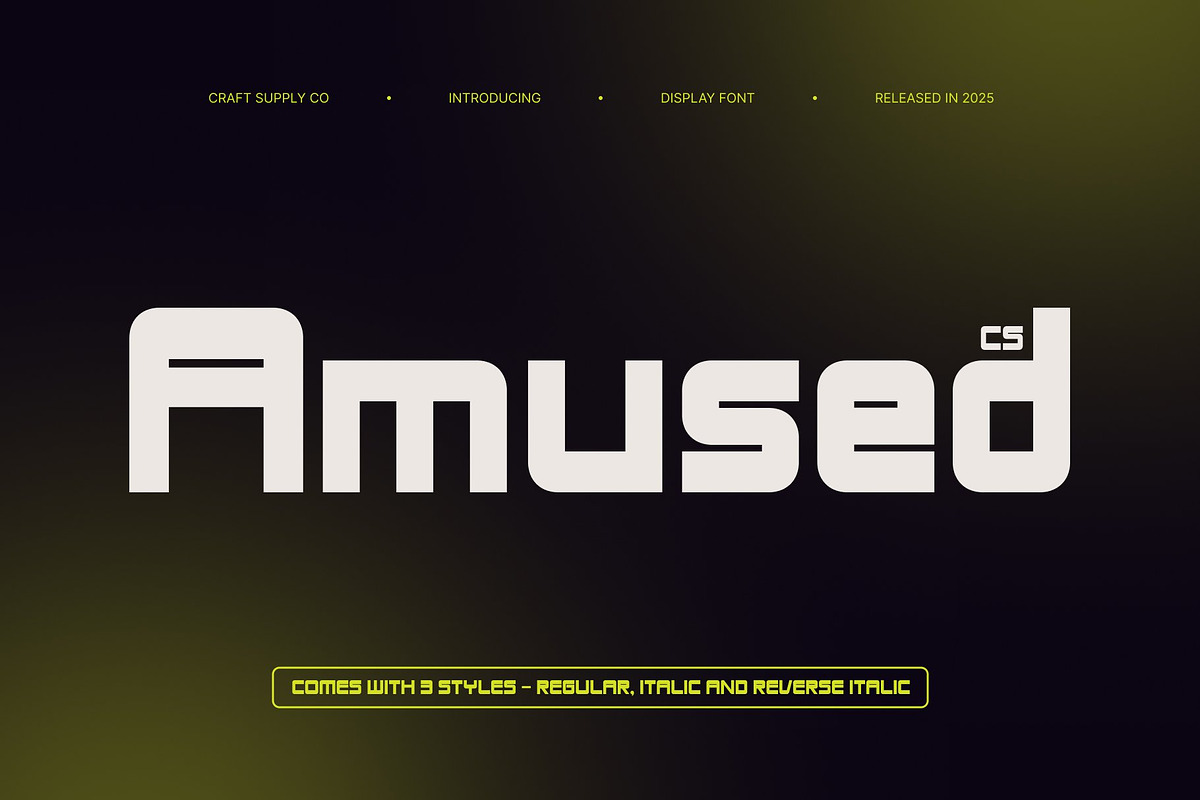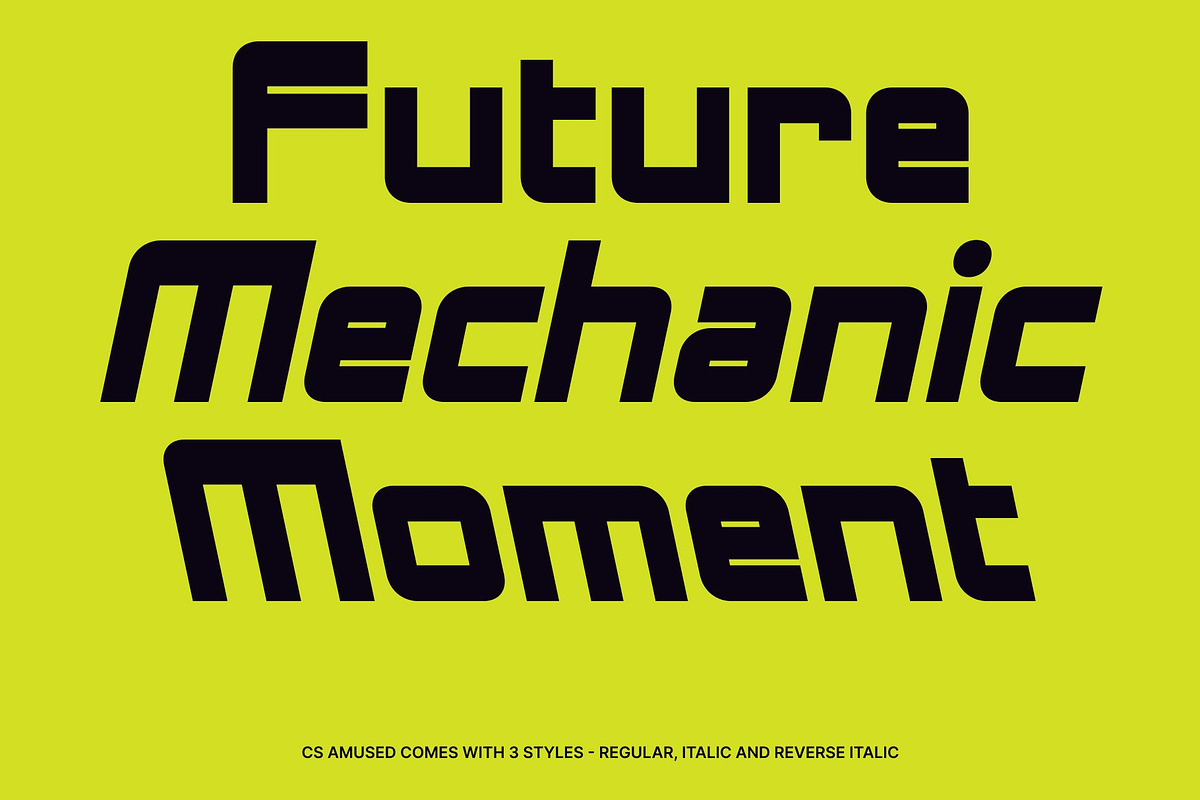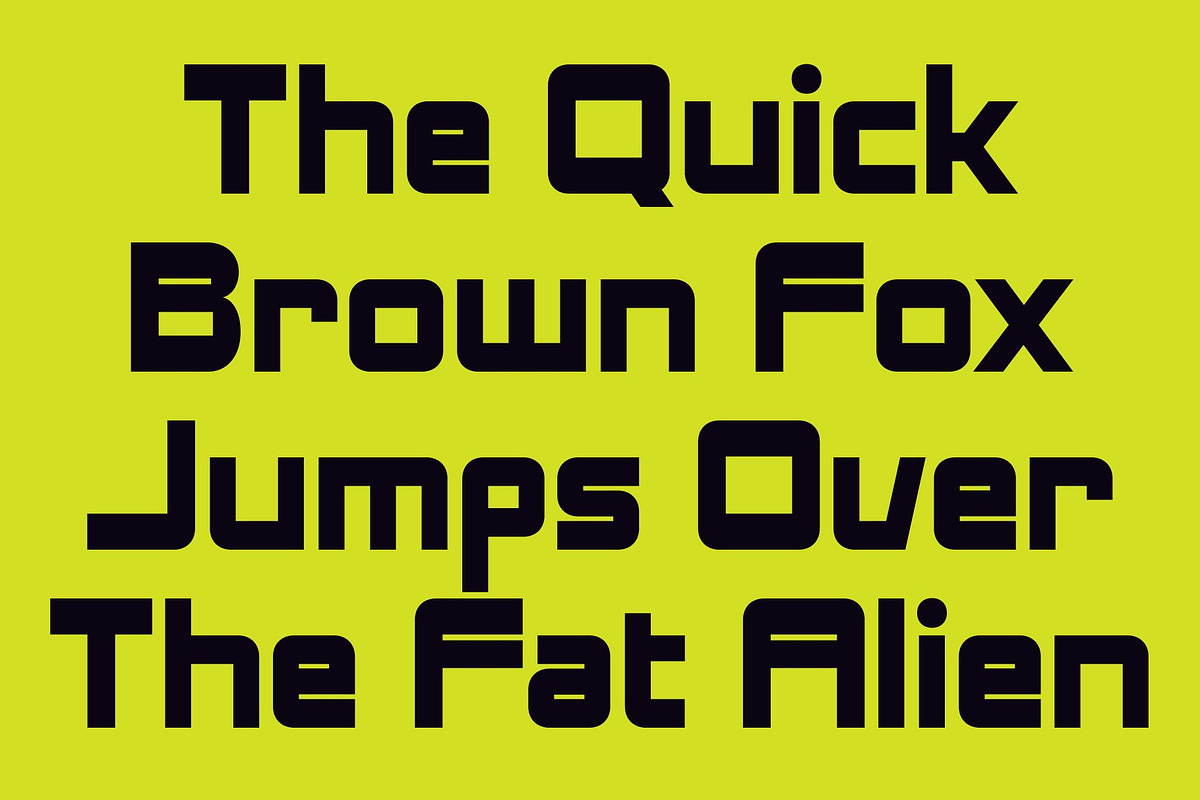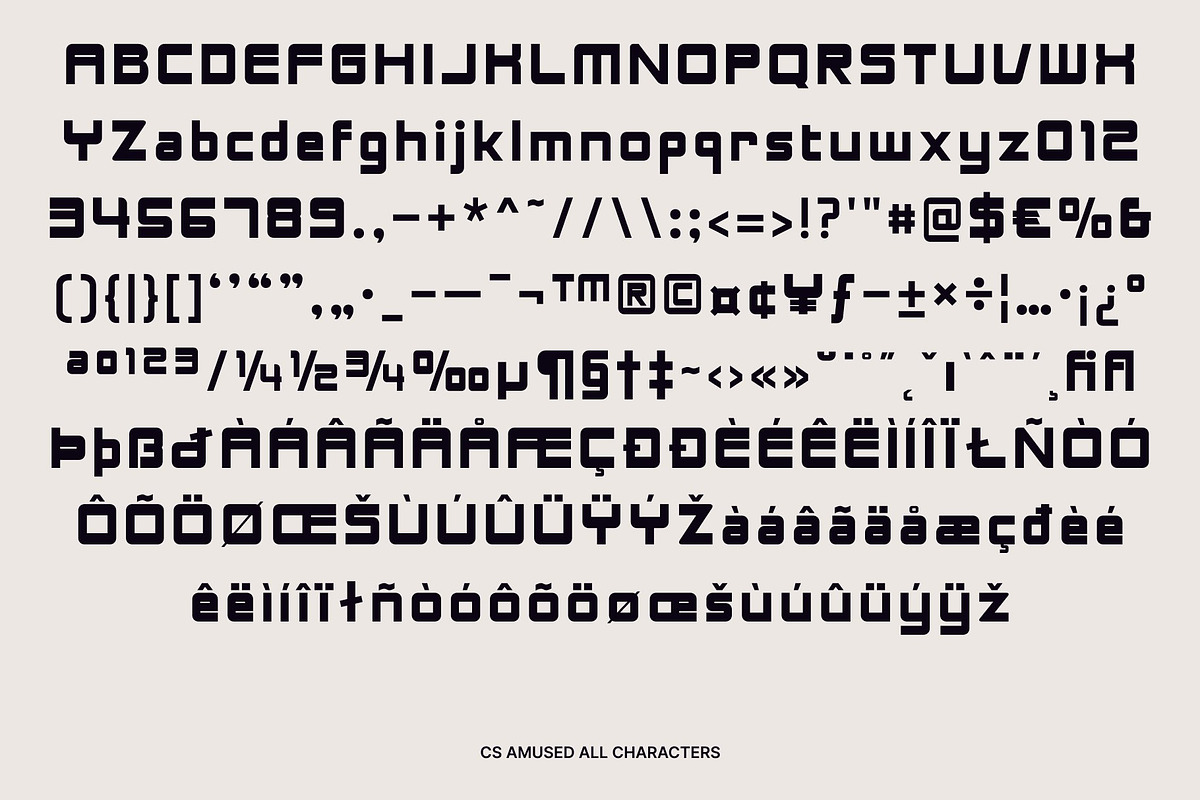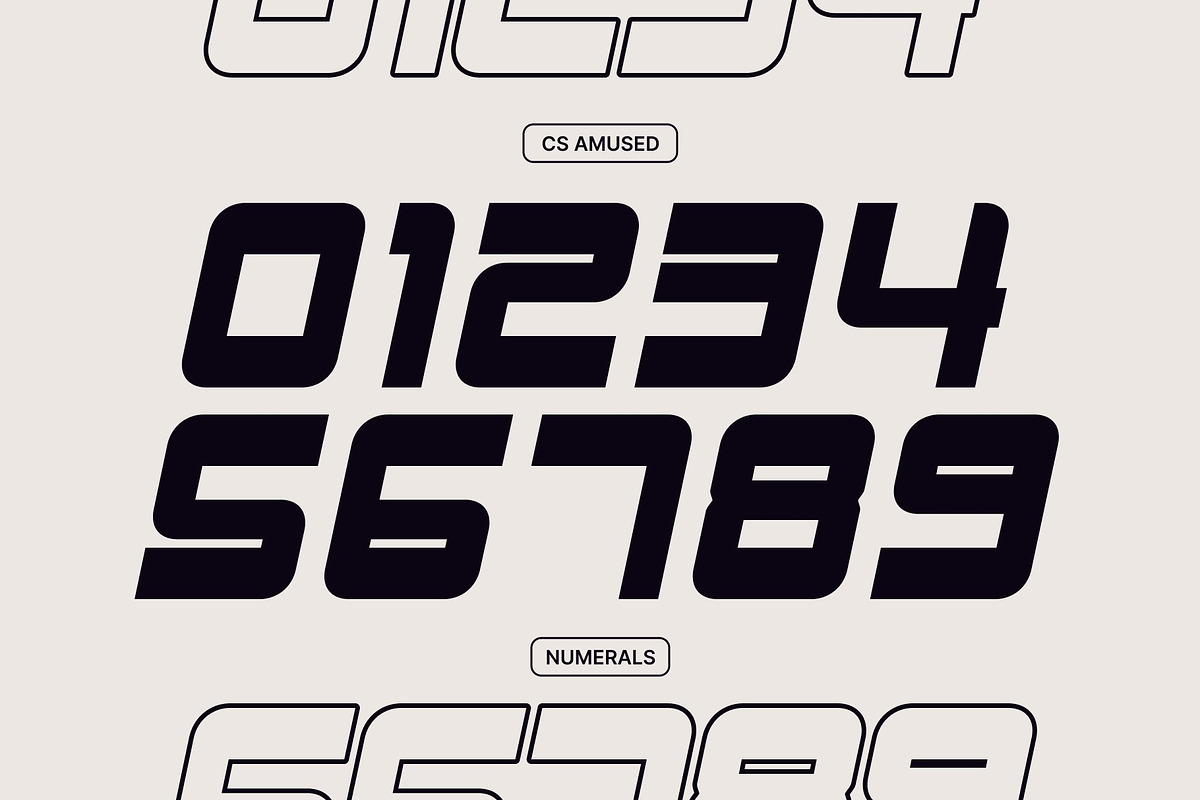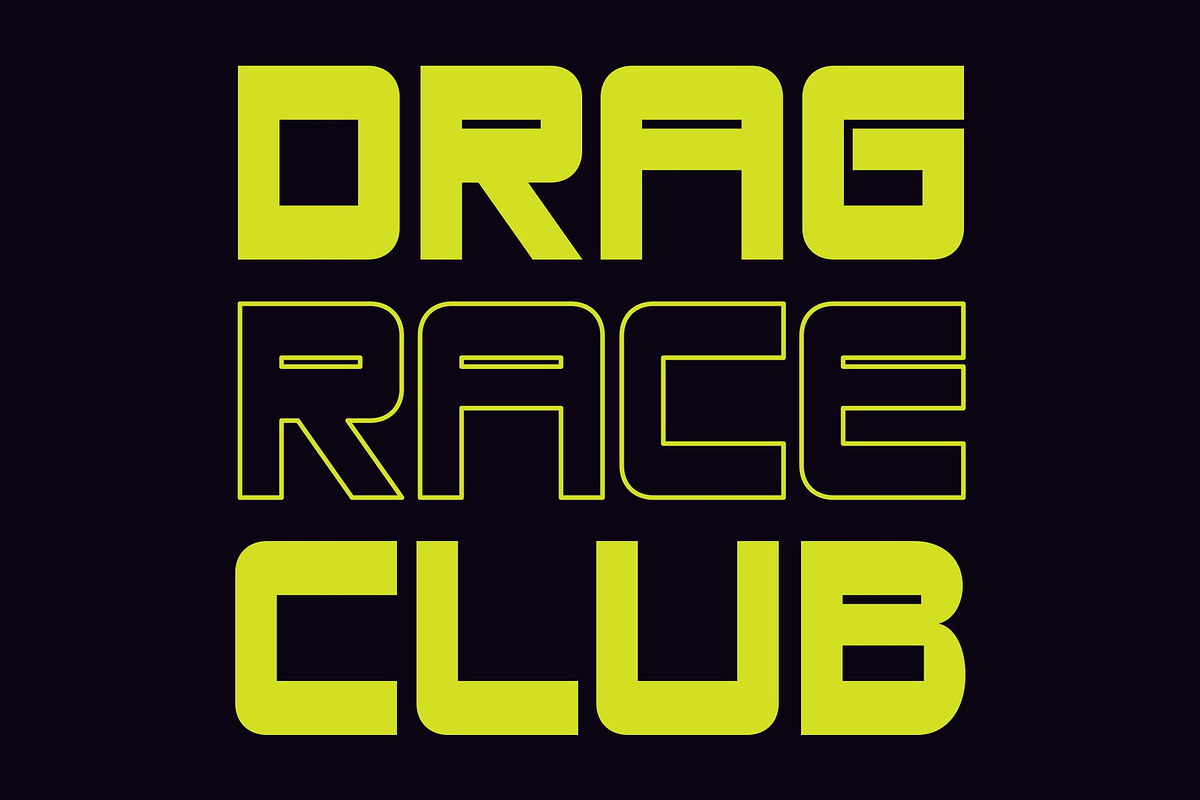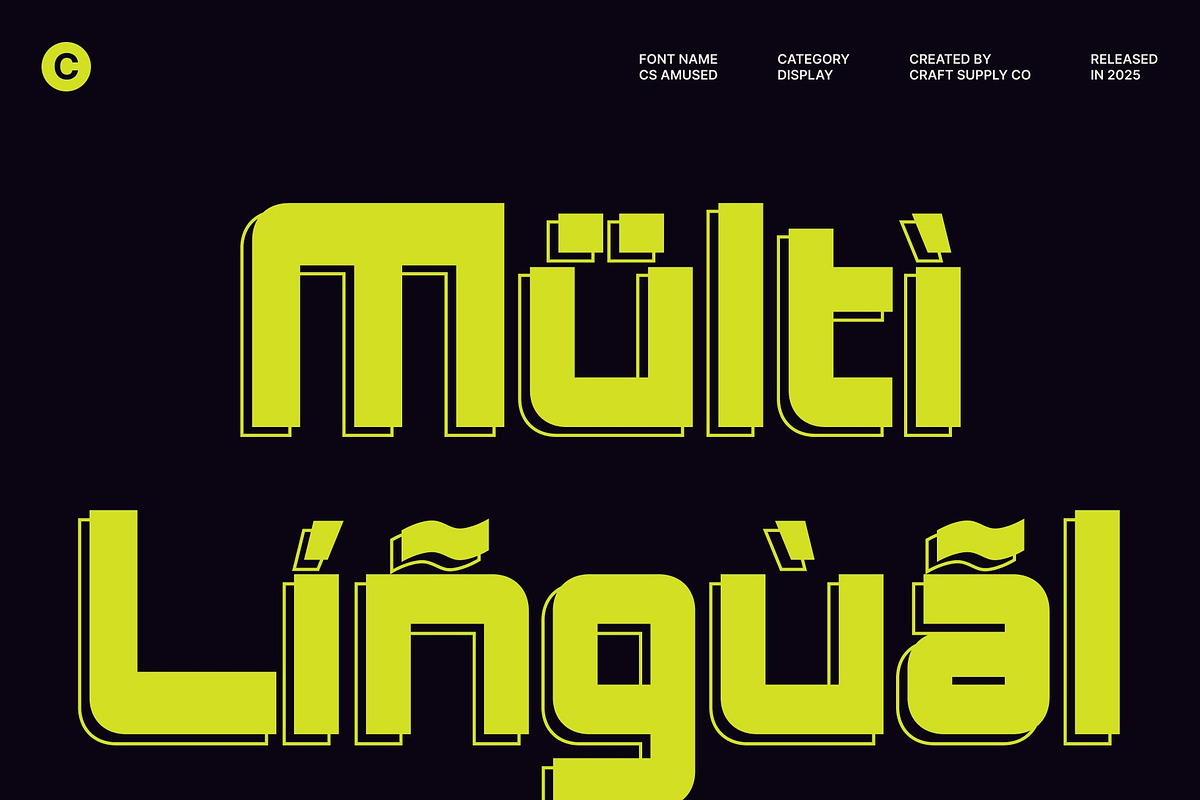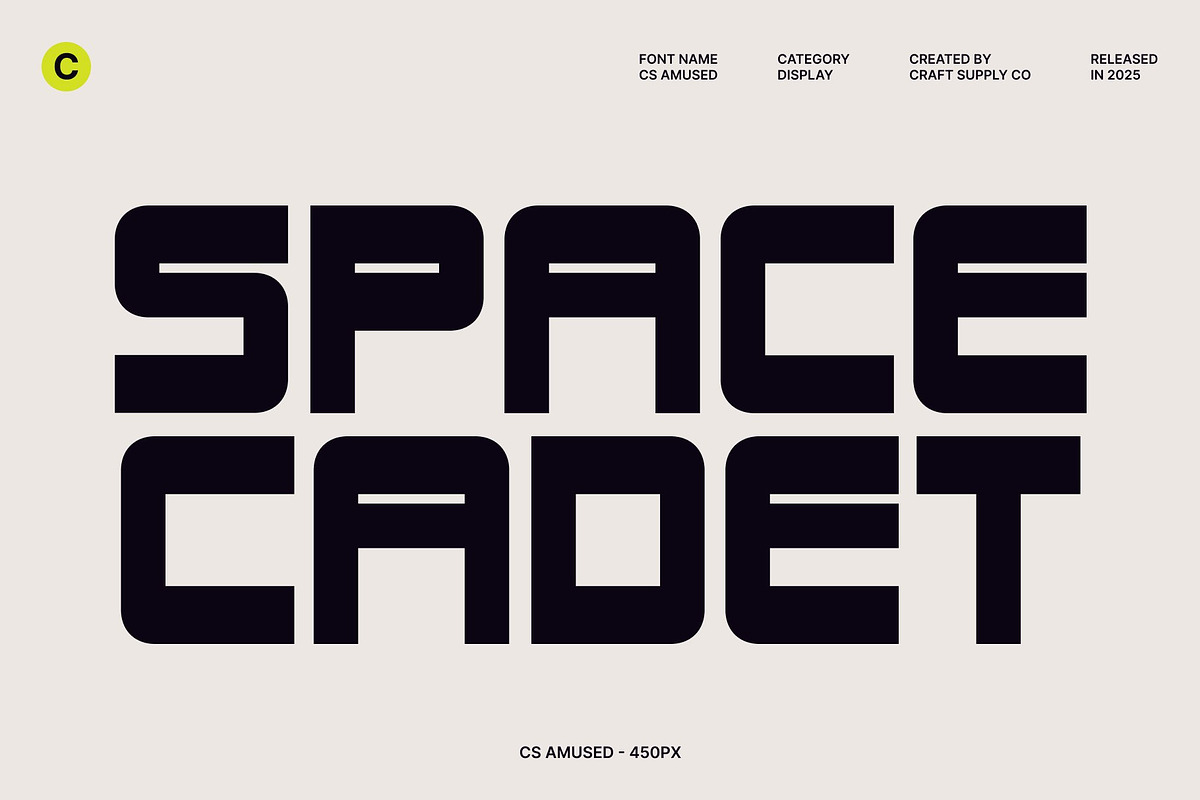
CS Amused – Techno Font
CS Amused – Techno Energy with Bold Modern Impact
Techno-Inspired Sans Serif Display Font This is a bold techno-inspired sans serif font designed to radiate modern energy and confident visual power. Its clean, futuristic structure combines sharp lines with dynamic proportions, creating letterforms that feel fast, digital, and forward-thinking.
Bold Construction for Strong Visual Presence The bold weight of this font gives it a commanding presence across all display applications. Each character is crafted with solid strokes and clear shapes, ensuring excellent visibility and instant readability. This strong construction allows the font to dominate layouts without feeling cluttered, making it highly effective for large headlines, logos, and branding elements where clarity and confidence are essential.
Modern Energy with Futuristic Character This font captures modern energy through its techno aesthetic and streamlined design. The futuristic influence adds a sense of innovation and movement, making the font feel alive and progressive. Its balanced geometry and clean finish create a versatile visual tone that works well across digital and print media, reinforcing a bold, modern identity with a technological edge.
Ideal for Branding, Logos, and Posters Designed to perform in high-impact environments, this font is perfect for branding, logo design, poster layouts, and promotional visuals. Its bold techno style makes it an excellent choice for technology brands, creative agencies, music events, gaming visuals, and contemporary campaigns.
- CS Amused Regular
- CS Amused Italic
- CS Amused Reverse Italic